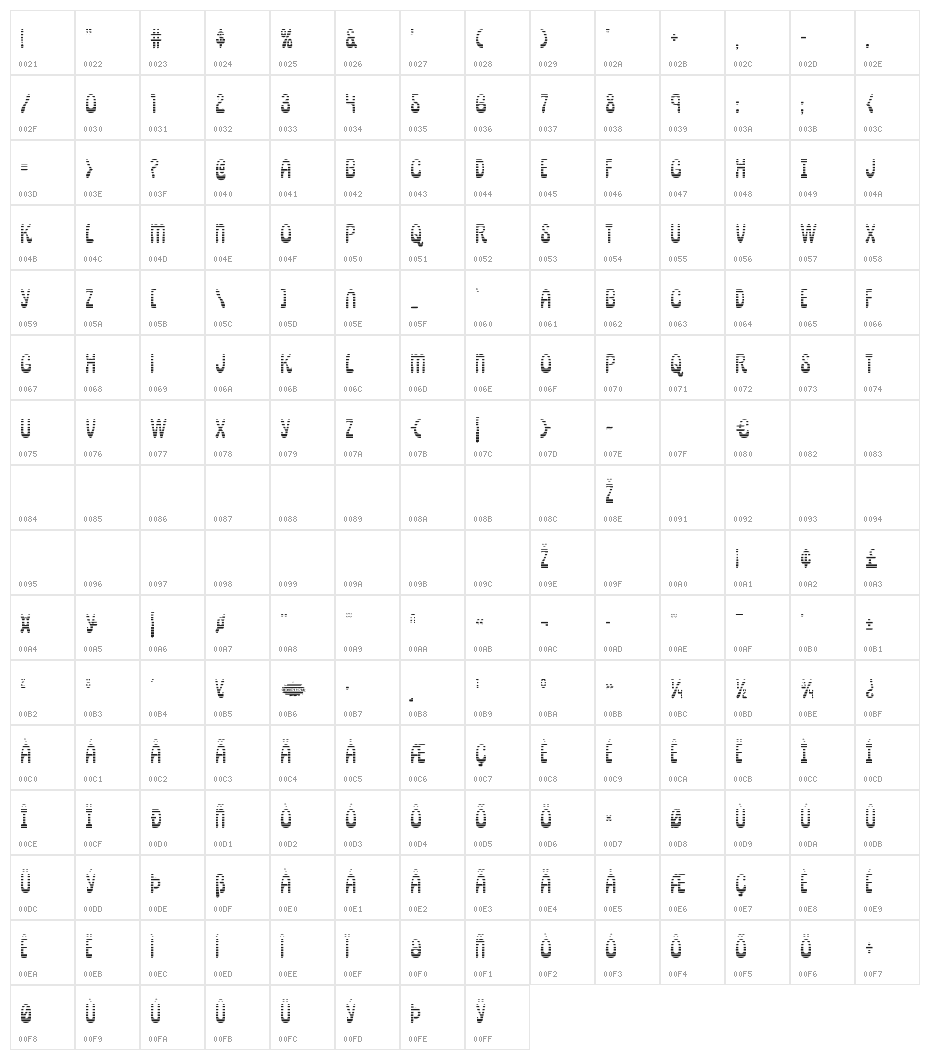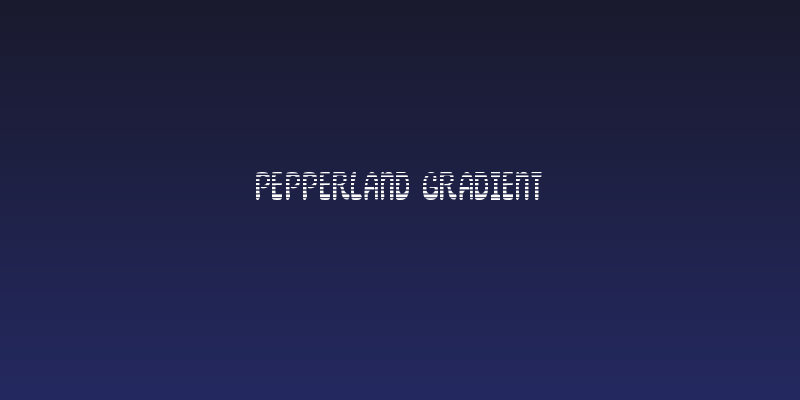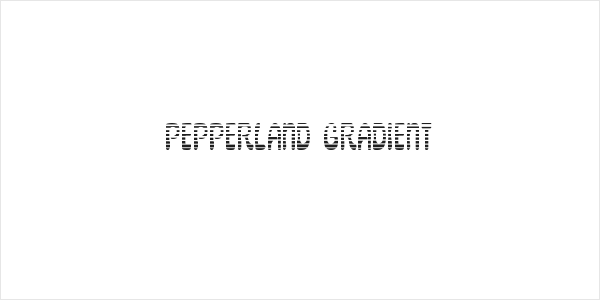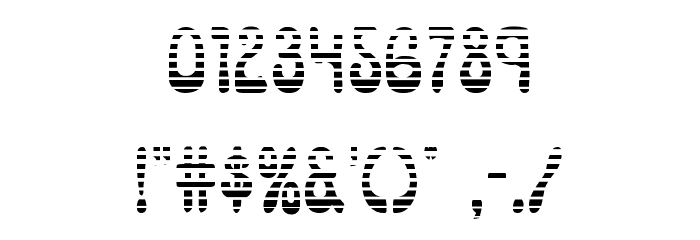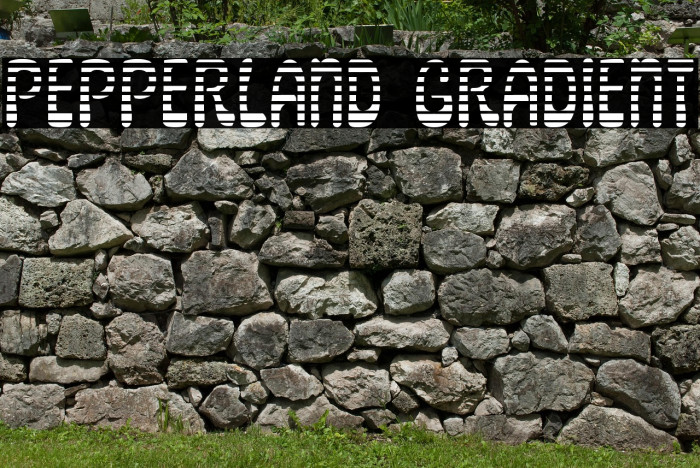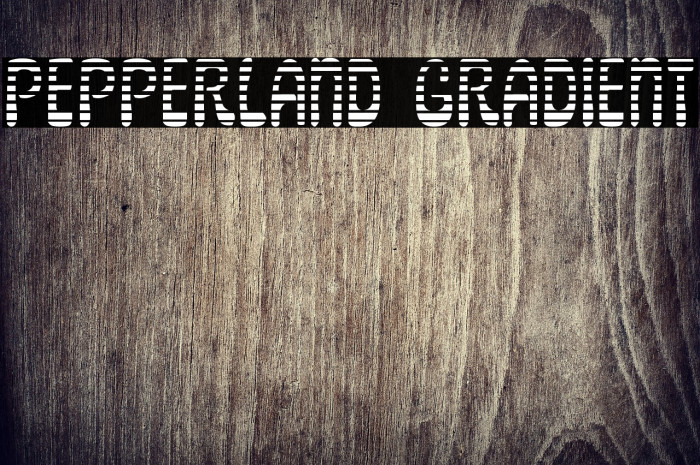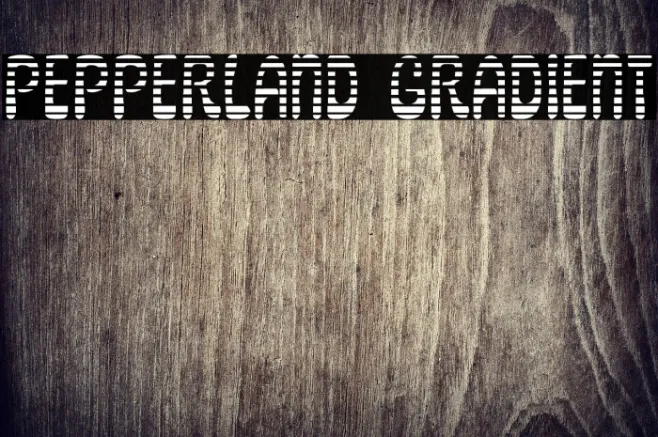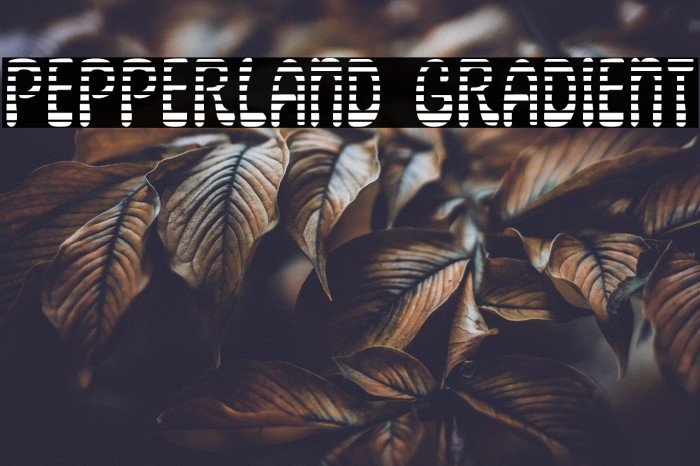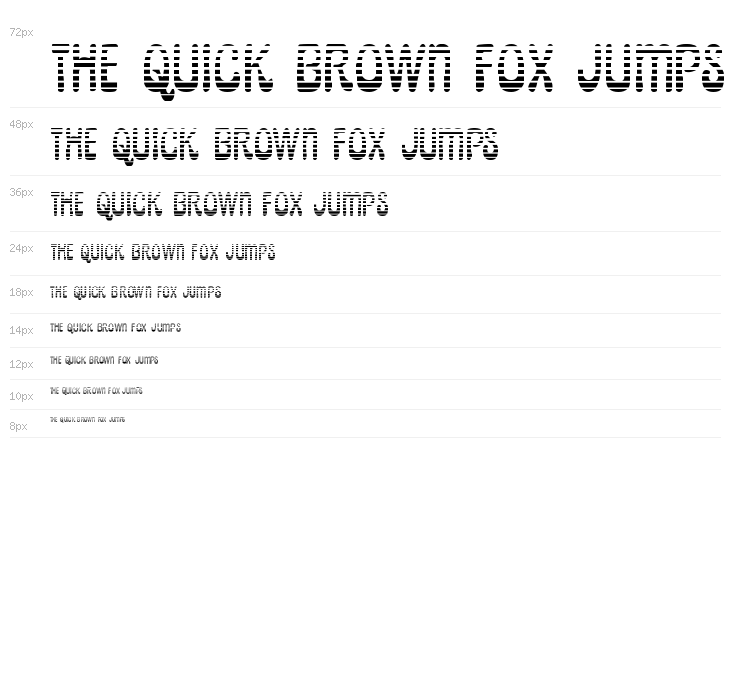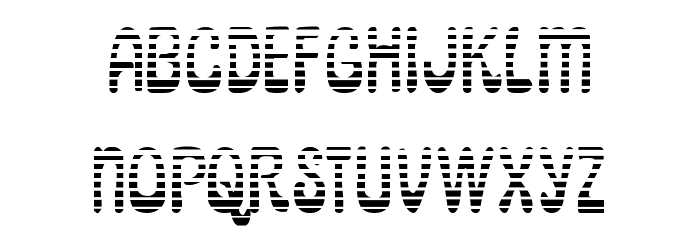
Pepperland Gradient Font
Pepperland Gradient Description
This font features a unique striped pattern that gives it a distinct and eye-catching appearance. Each character is composed of horizontal lines that create a gradient effect, adding depth and texture. The uppercase and lowercase letters maintain a consistent style, with rounded edges and a bold presence. Numbers and special characters follow the same design, ensuring uniformity across all glyphs. The font's playful yet structured design makes it suitable for creative projects that require a modern and dynamic look.